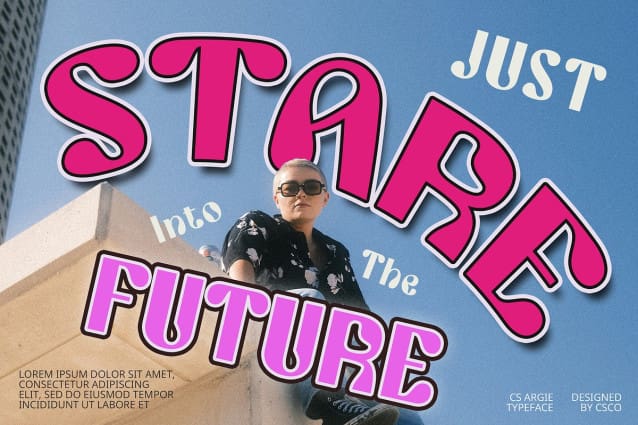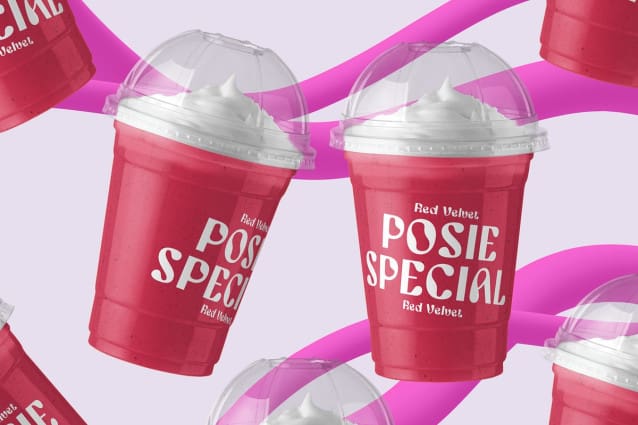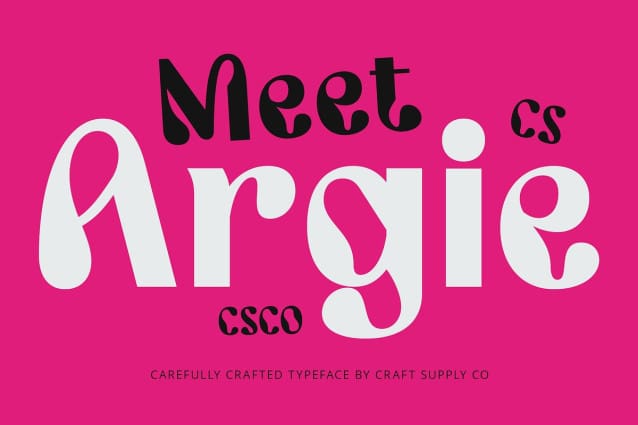
CS Argie Font
CS Argie Font is a display font that brings the vibrant world of psychedelic art to your designs. With its trippy shapes and swirling forms, this font offers a unique and playful look, radiating a sense of fun and creativity. Its bold, undulating lines create dynamic visual effects that captivate and engage the viewer.
Psychedelic Inspiration with Funky Touches Inspired by psychedelic and trippy art, CS Argie features curved, swirling, and undulating shapes that make each letter a visual experience. The font’s bold and distinctive forms, paired with playful and funky design elements, evoke a sense of joy and imaginative expression, perfect for making a statement.
Ideal for Vibrant and Expressive Projects CS Argie is ideal for projects that seek to capture a vibrant, expressive atmosphere. Whether used in posters, album covers, or promotional materials, this font stands out with its energetic and eye-catching design, making it perfect for any creative project aiming to showcase bold and dynamic visuals.
Bringing Joy and Creativity to Your Designs With its captivating psychedelic design and playful character, CS Argie adds a touch of joy and creativity to your projects. Its unique, trippy shapes ensure that your design will be memorable and visually engaging, making it an excellent choice for any work that aims to highlight a fun and expressive aesthetic.